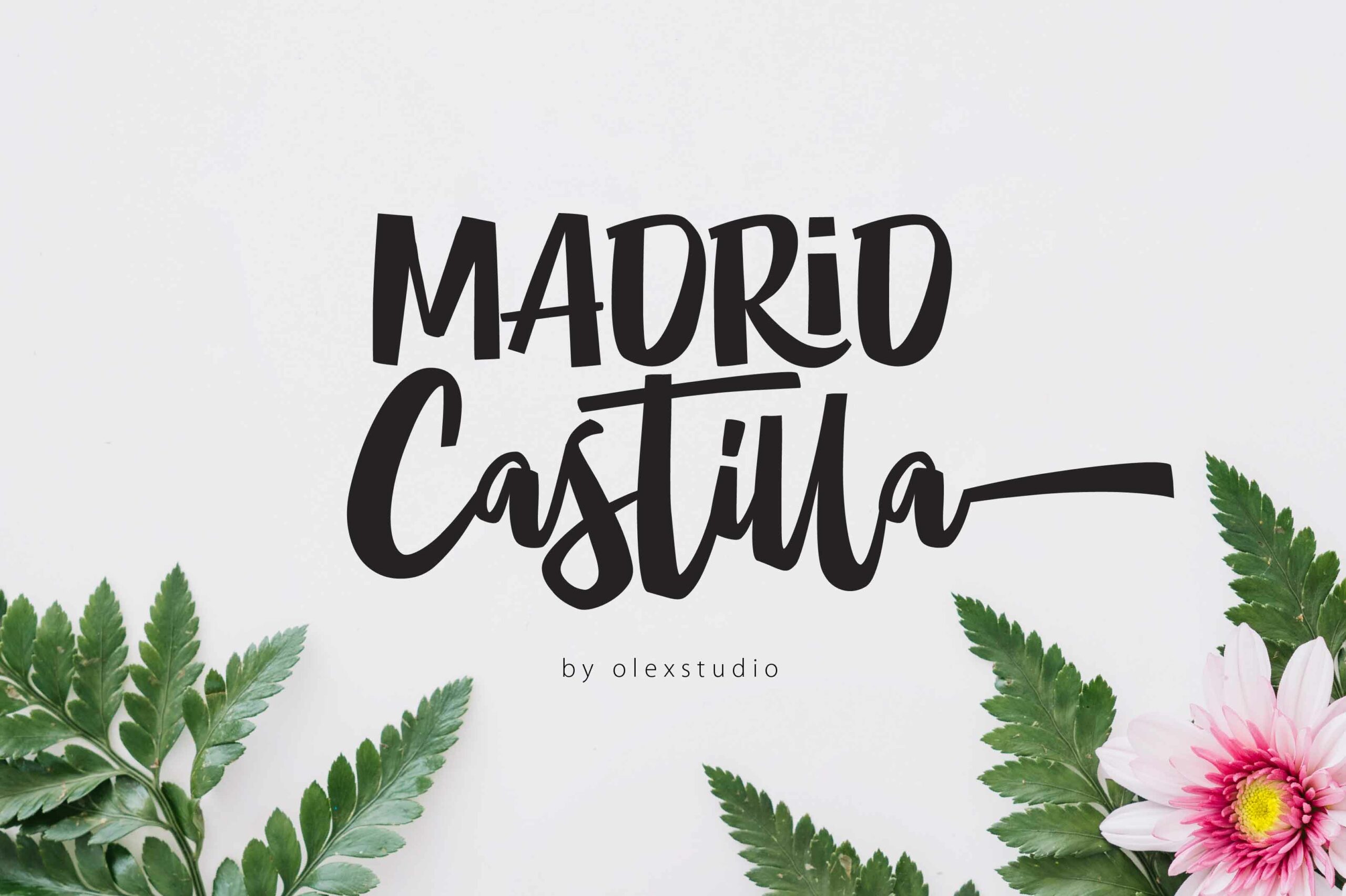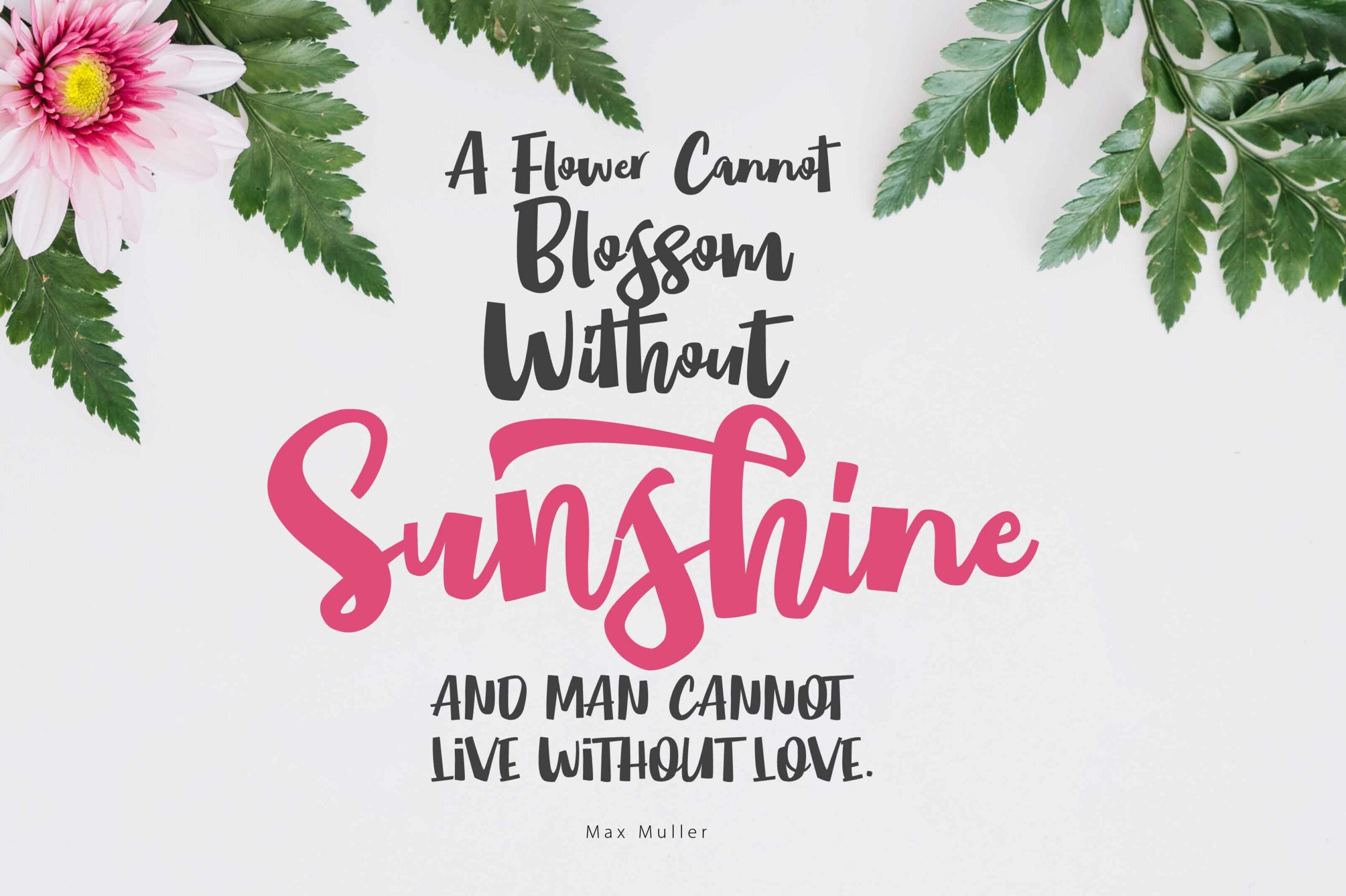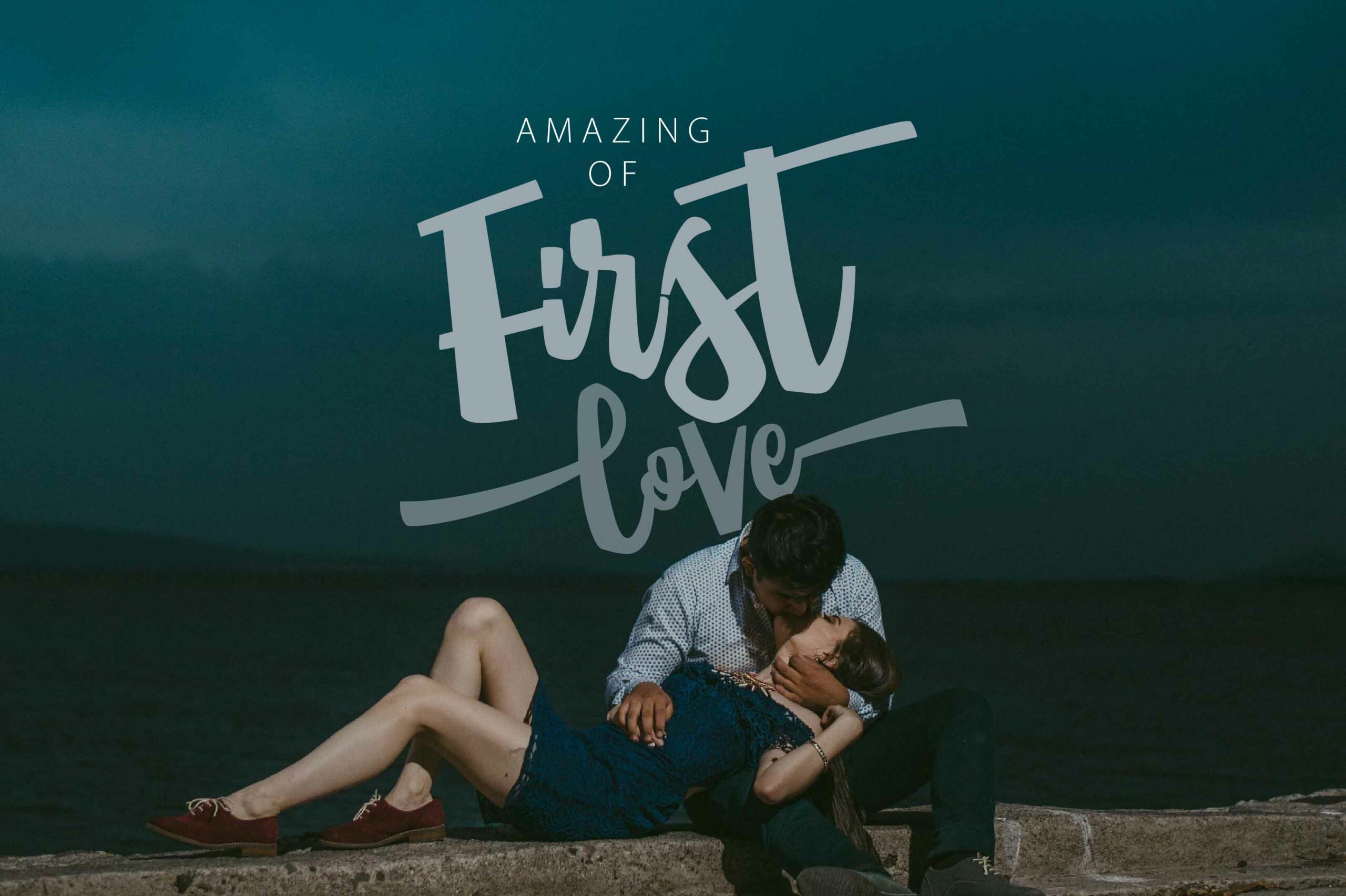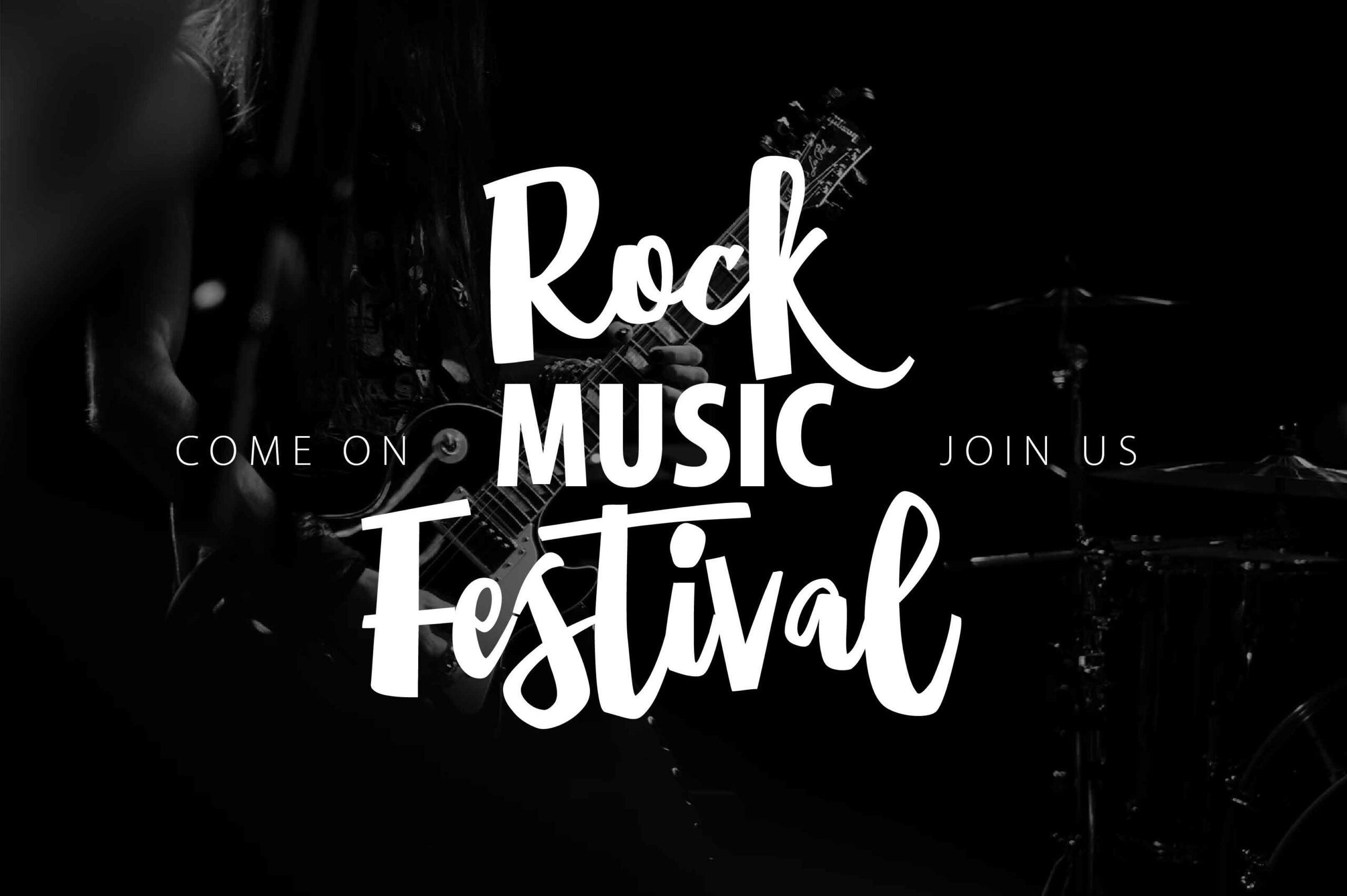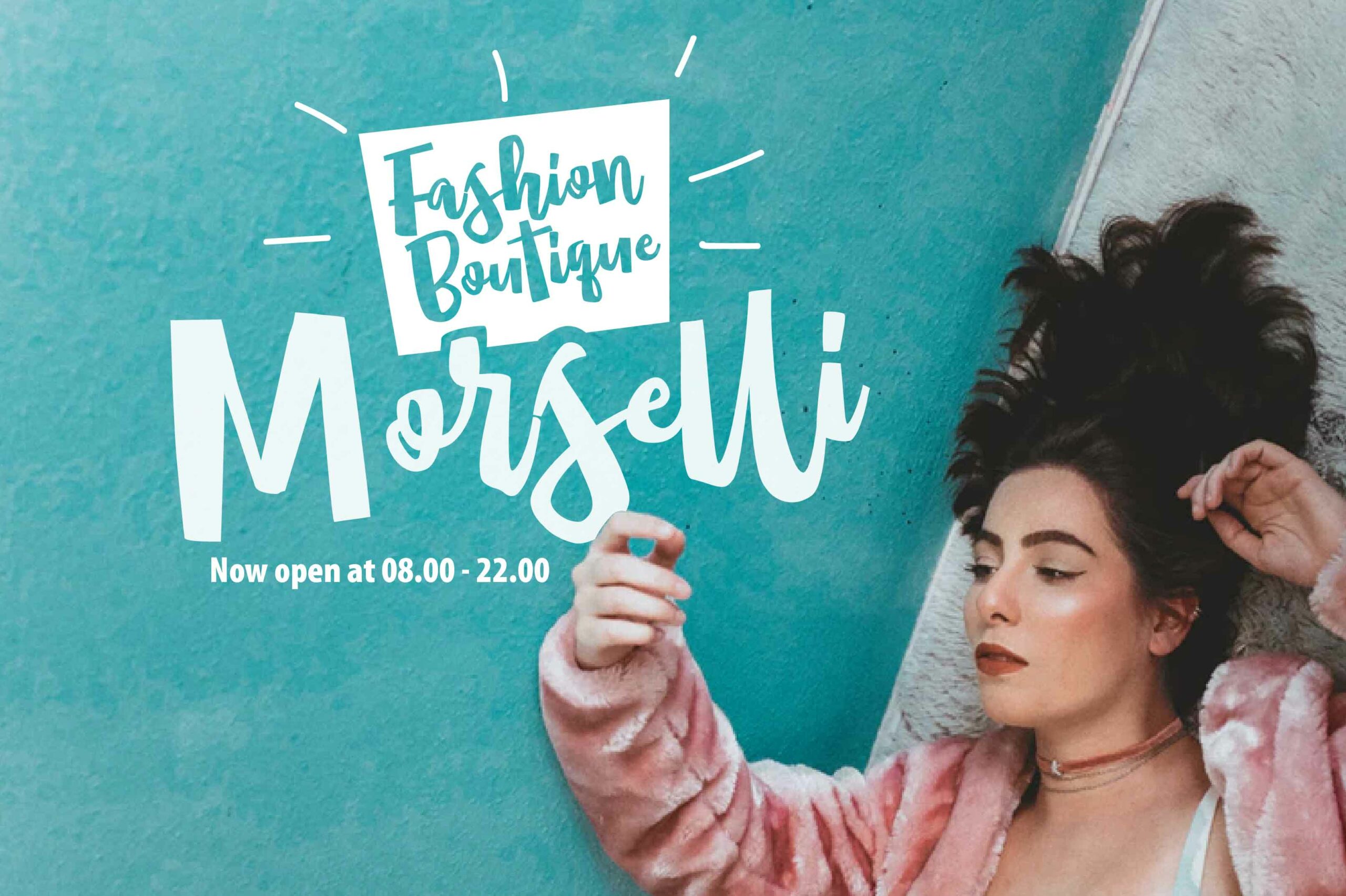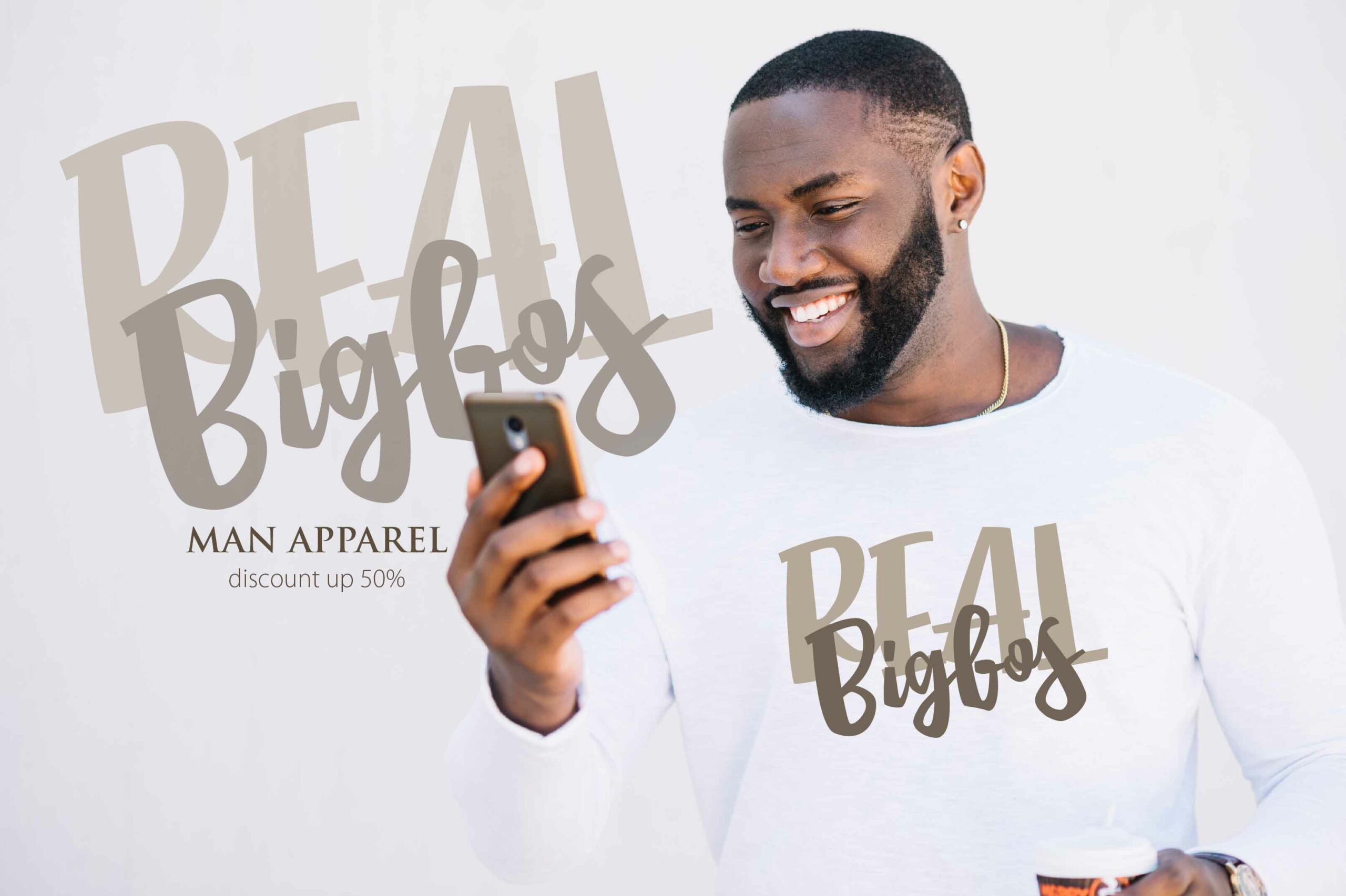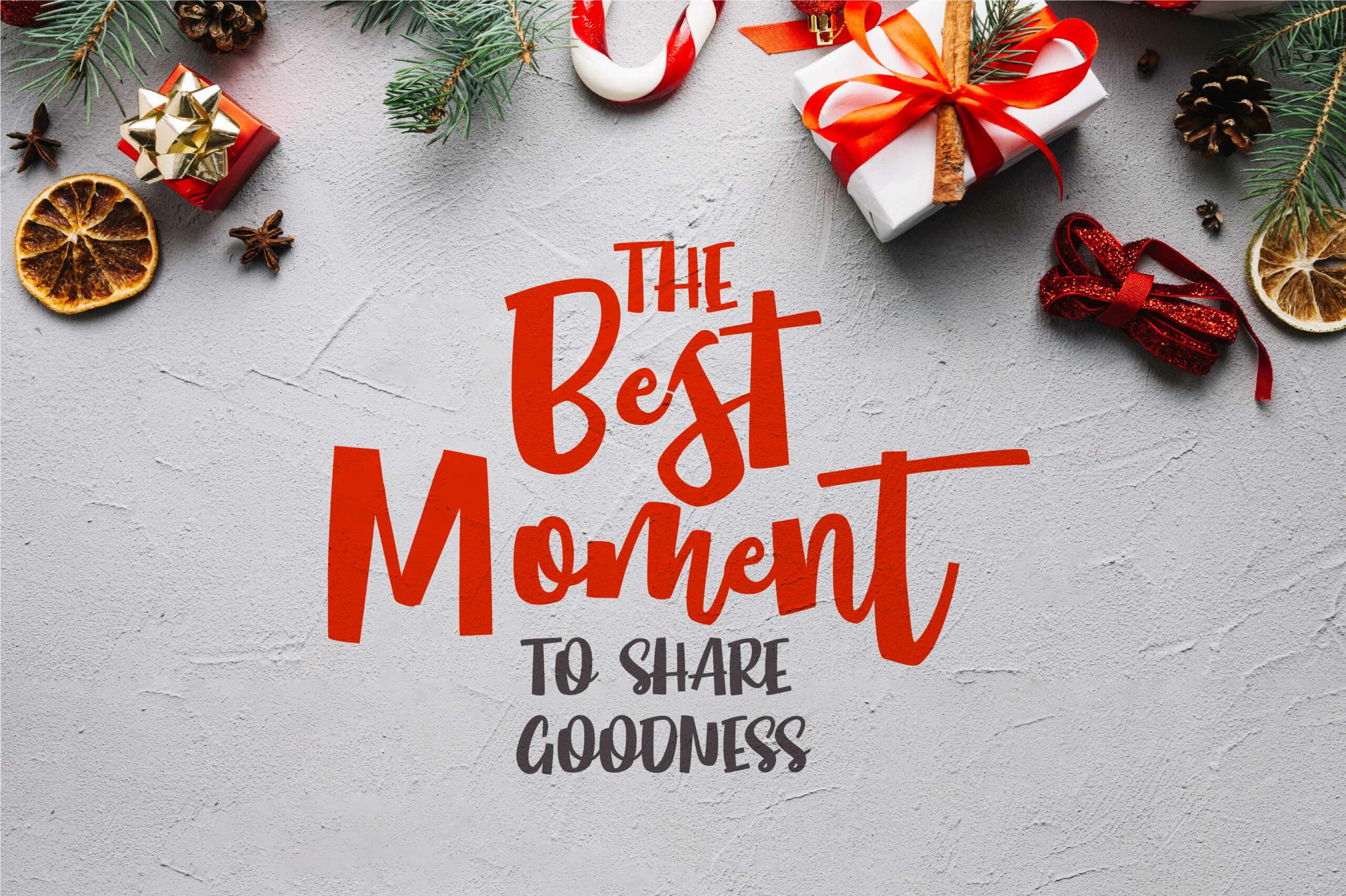
MADRID Castilla Font
About MADRID Castilla Font
MADRID Castilla is a gorgeous script font, beautifully bold and casual. This font pairs wonderfully with a large range of fonts, and is a great standalone display option.